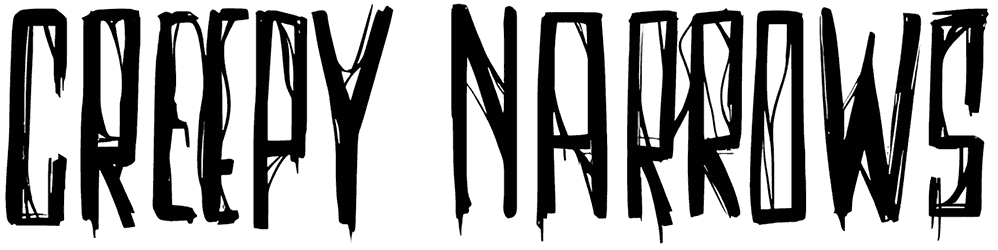
Creepy Narrows Font
Some typefaces instantly create unease, and Creepy Narrows does it with remarkable restraint. Instead of relying on dripping blood effects or exaggerated horror clichés, this font builds tension through its tall, condensed proportions and unsettling character shapes. The narrow letterforms feel confined and uncomfortable in the best possible way, giving headlines a psychological edge that lingers long after they’re read.
This spider font is the kind of typography that works perfectly for horror movie posters, Halloween branding, haunted attraction graphics, dark album artwork, thriller book covers, gaming projects, and mysterious social media campaigns. Every letter feels like it’s hiding something just outside the frame. Sometimes the most effective horror typography isn’t the one that screams; it’s the one that quietly makes people uncomfortable.